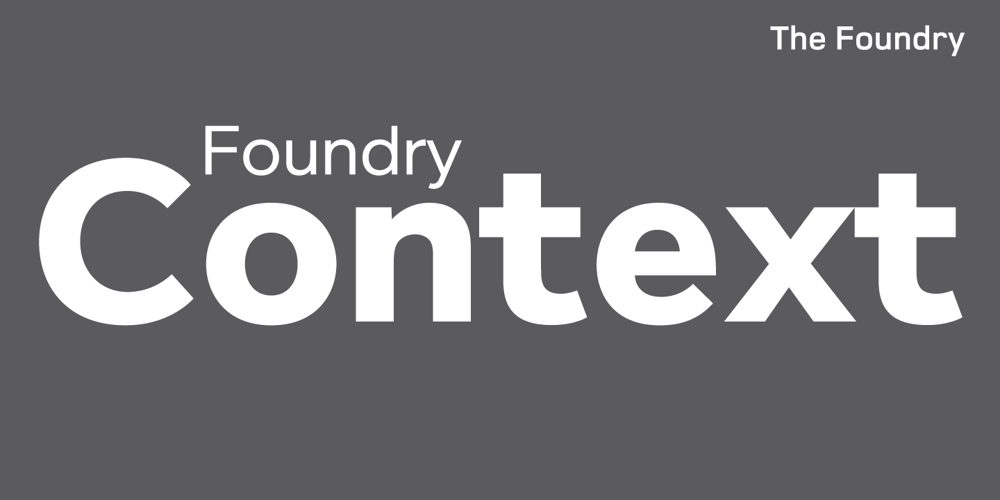
Foundry Context Font Family was designed by Freda Sack, David Quay, Stuart De Rozario and published by The Foundry. Foundry Context contains 6 styles and family package options. Foundry Context is a sans serif family designed to be universal in many contexts – hence the name. A ‘no-nonsense’ typeface, reminiscent of 19th century sans serif faces, Foundry Context has very round, pure letterforms, crafted without being over refined, and having minimal stroke contrast in the neo-grotesque style. A hint of personality has emerged from the very drawing of the proportions, strokes, and terminals, yet Foundry Context is still neutral enough to compete in the grotesk arena, and at the same time has something new to say.